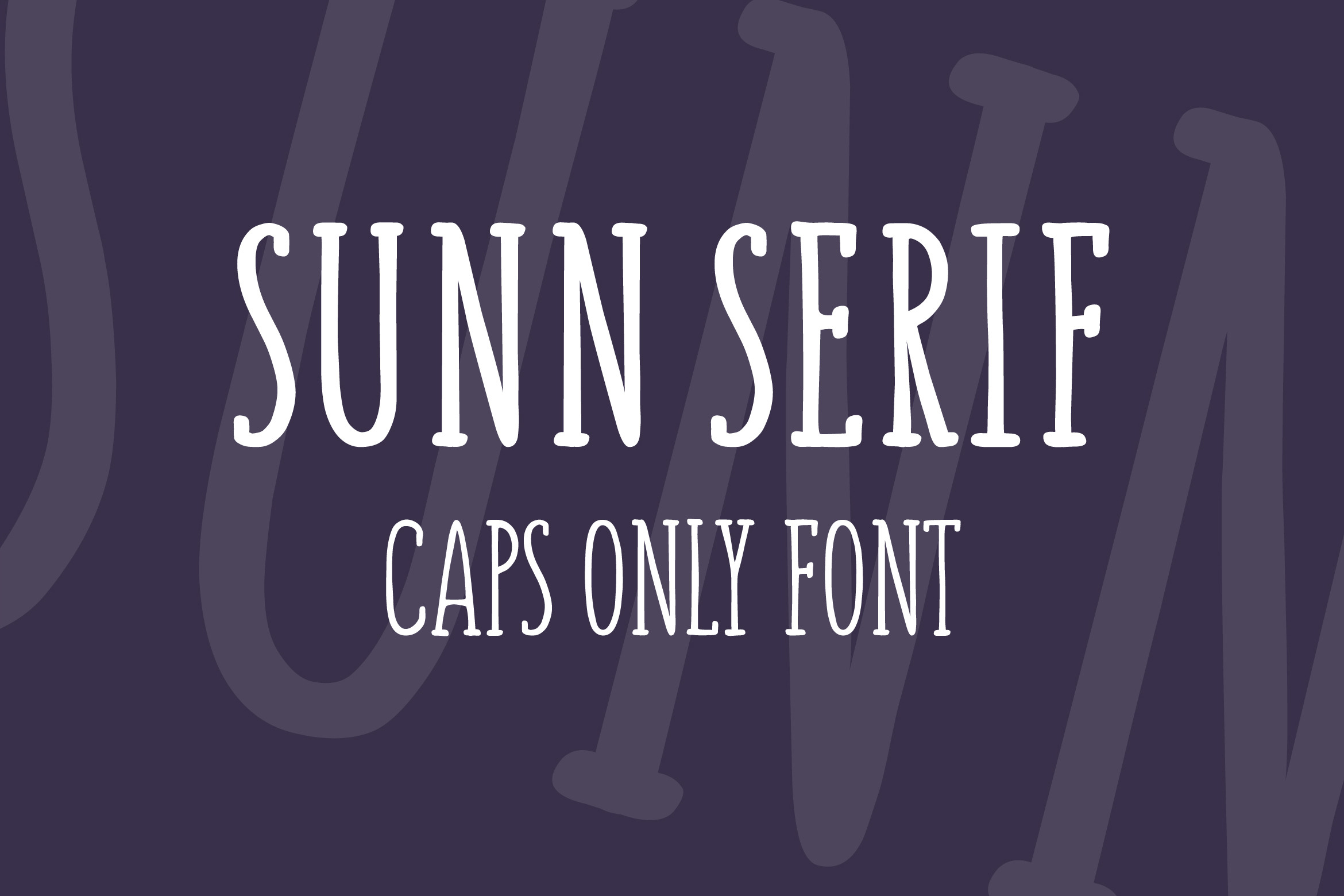
SUNN Serif Caps Only Font
SUNN Serif Caps Only Font comes in two weights - Bold and Regular, it has only latin uppercase letters, numbers and some symbols. Lightweight.